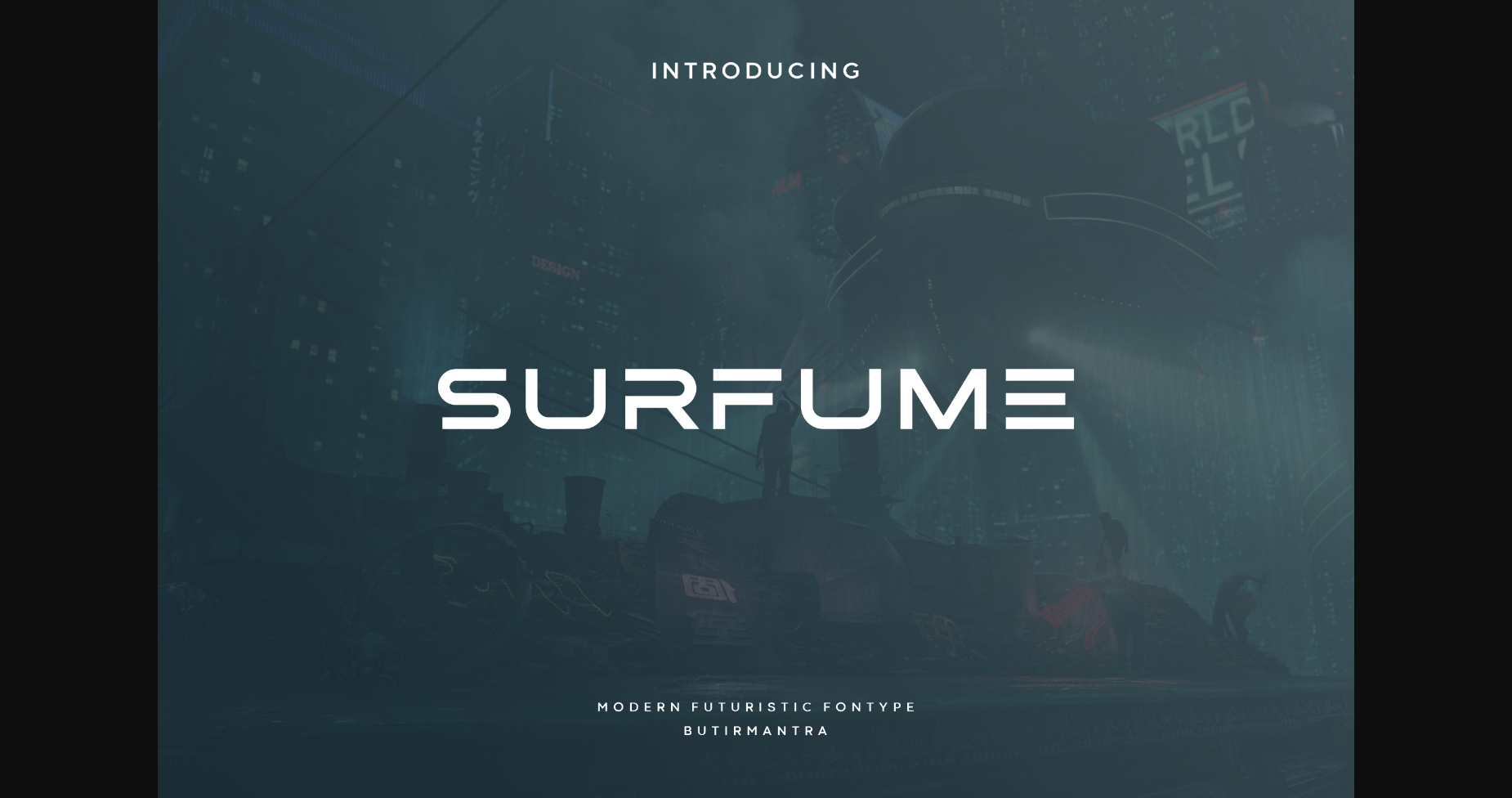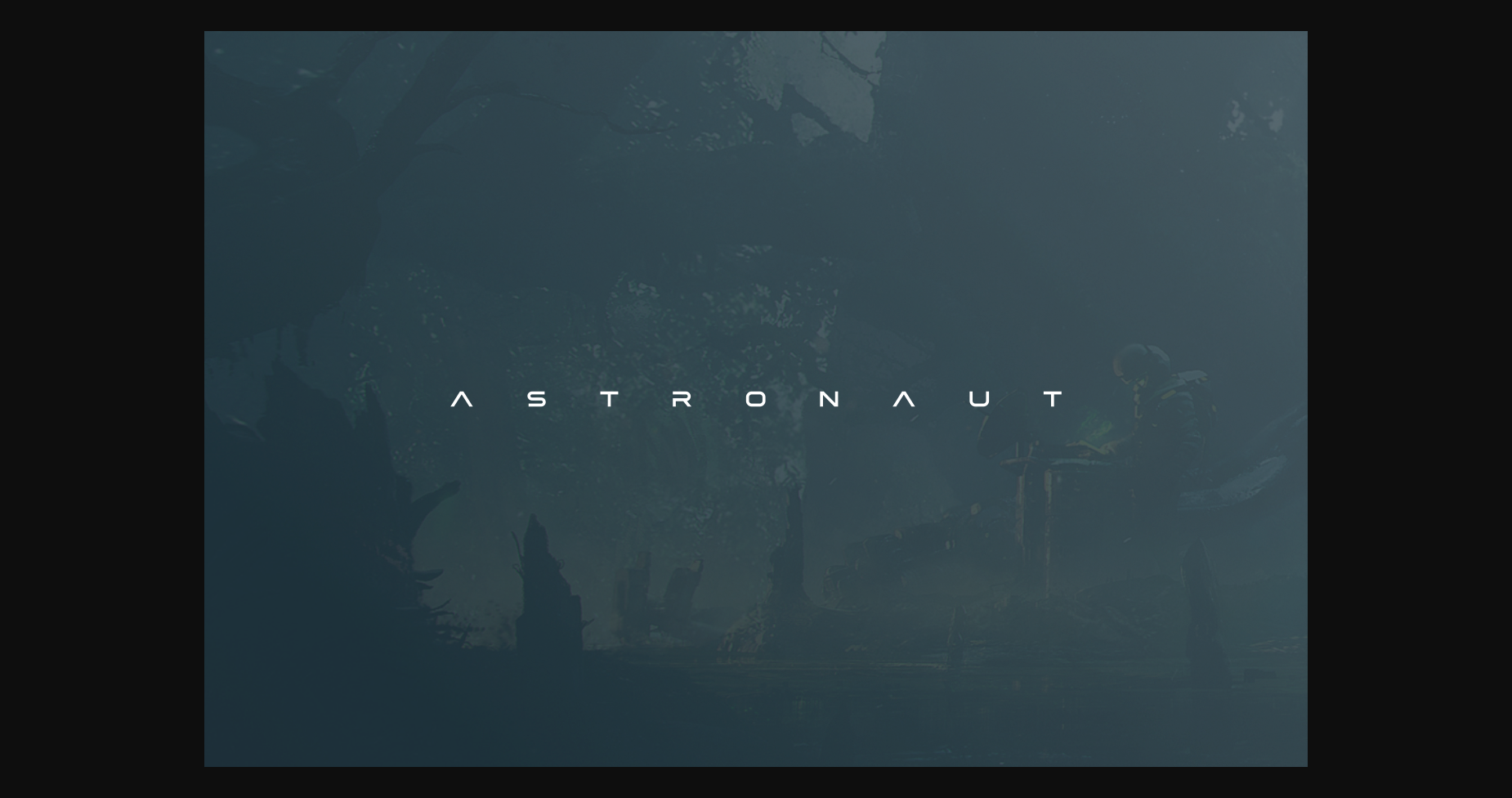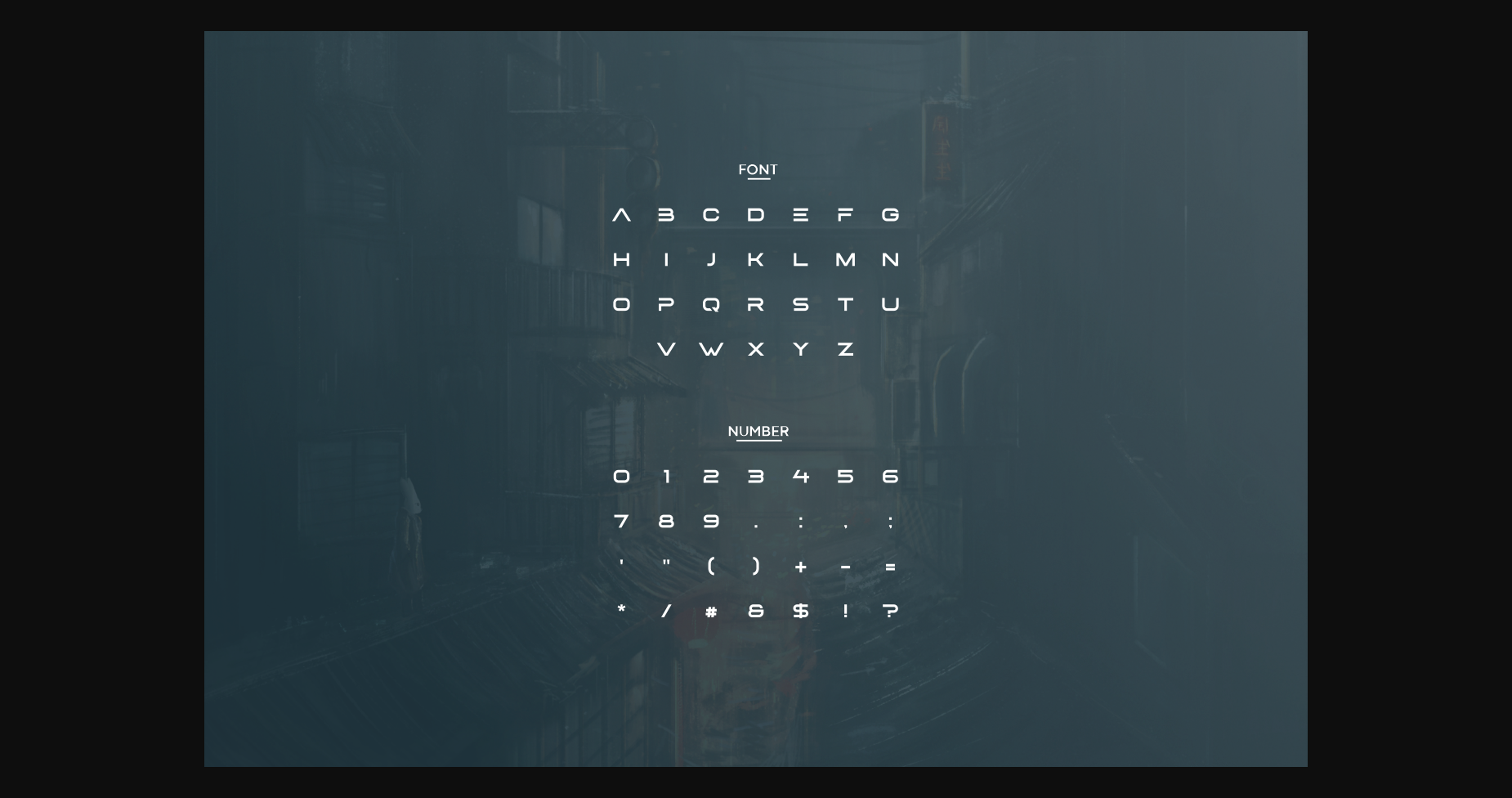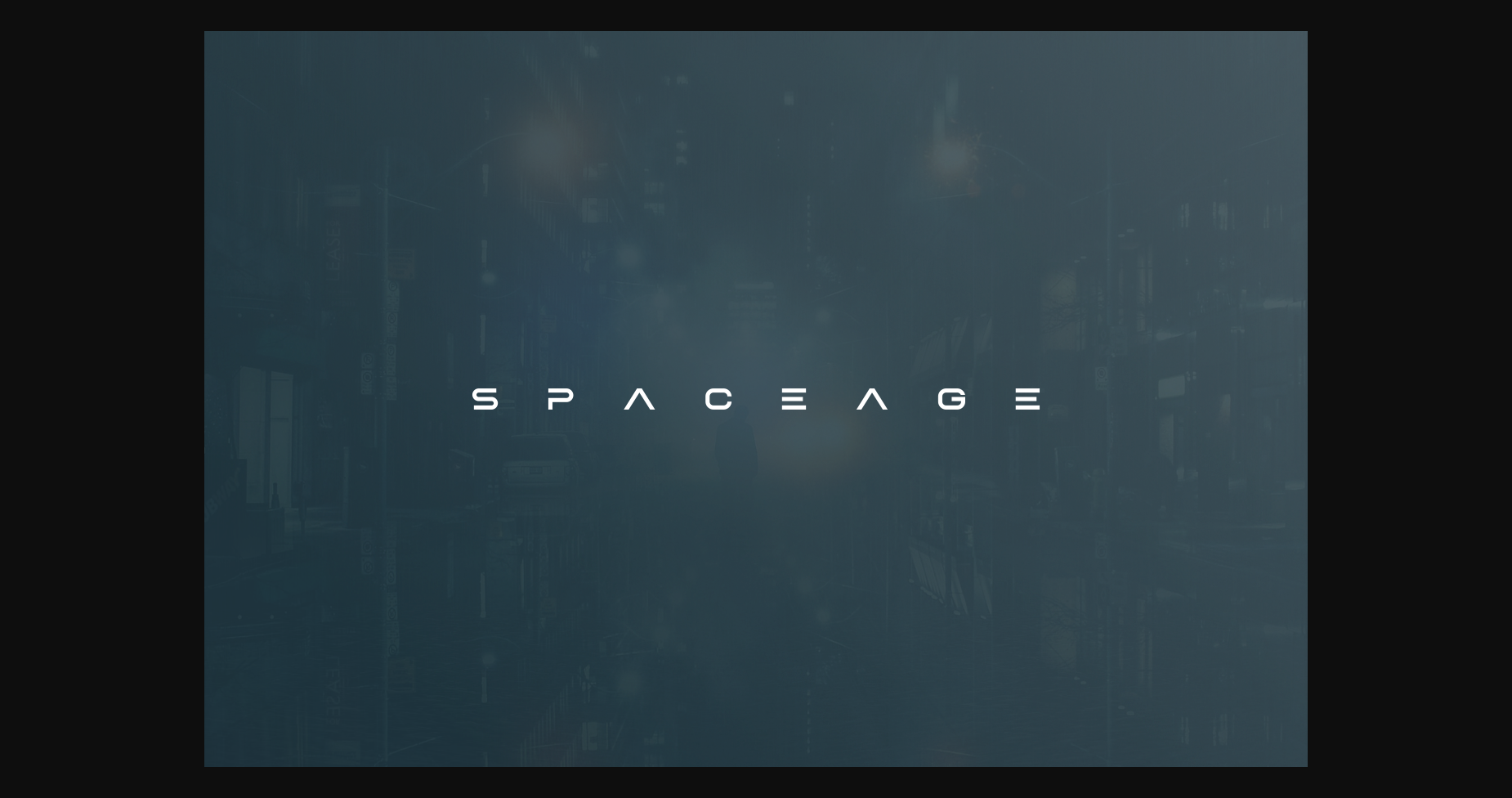
About Surfume Font
Surfume is a futuristic font inspired by science fiction films and books. Minimalistic is the main style for this typeface and the simple style actually gives it a more modern and elegant look. This font is suitable for various projects such as movies, posters, logos, labels, and more!